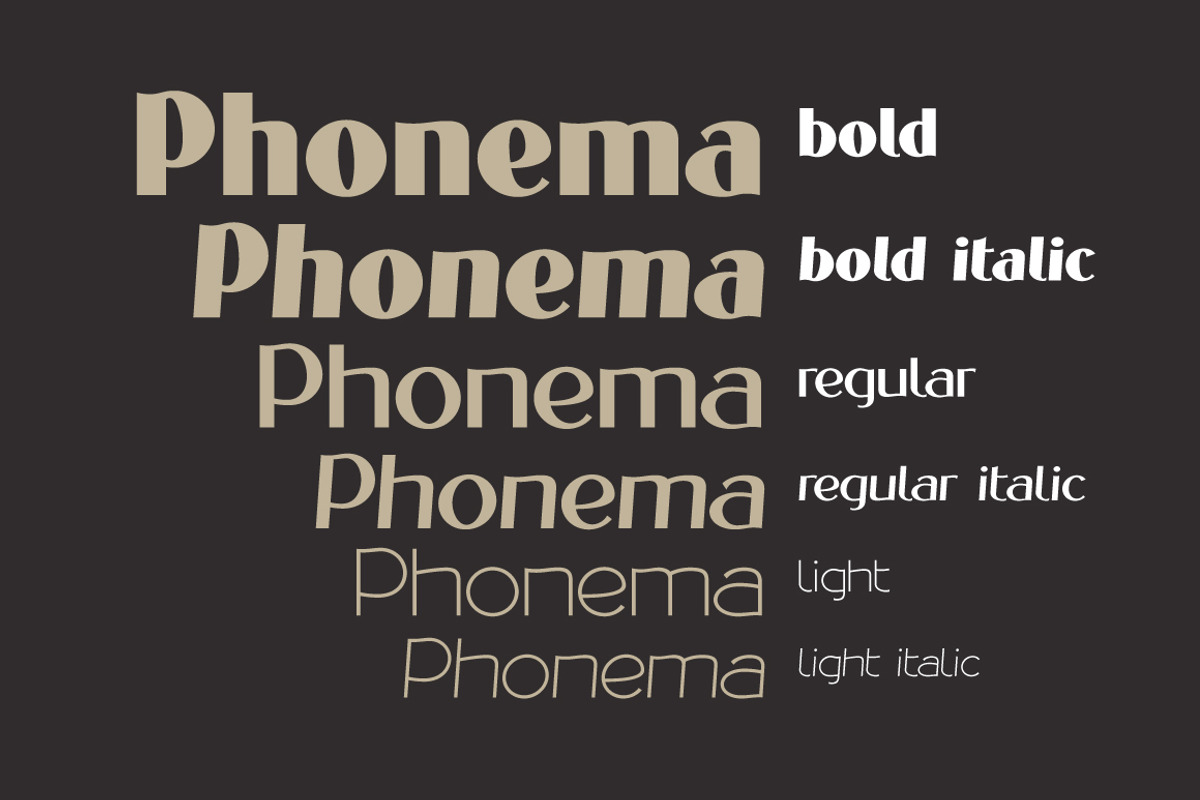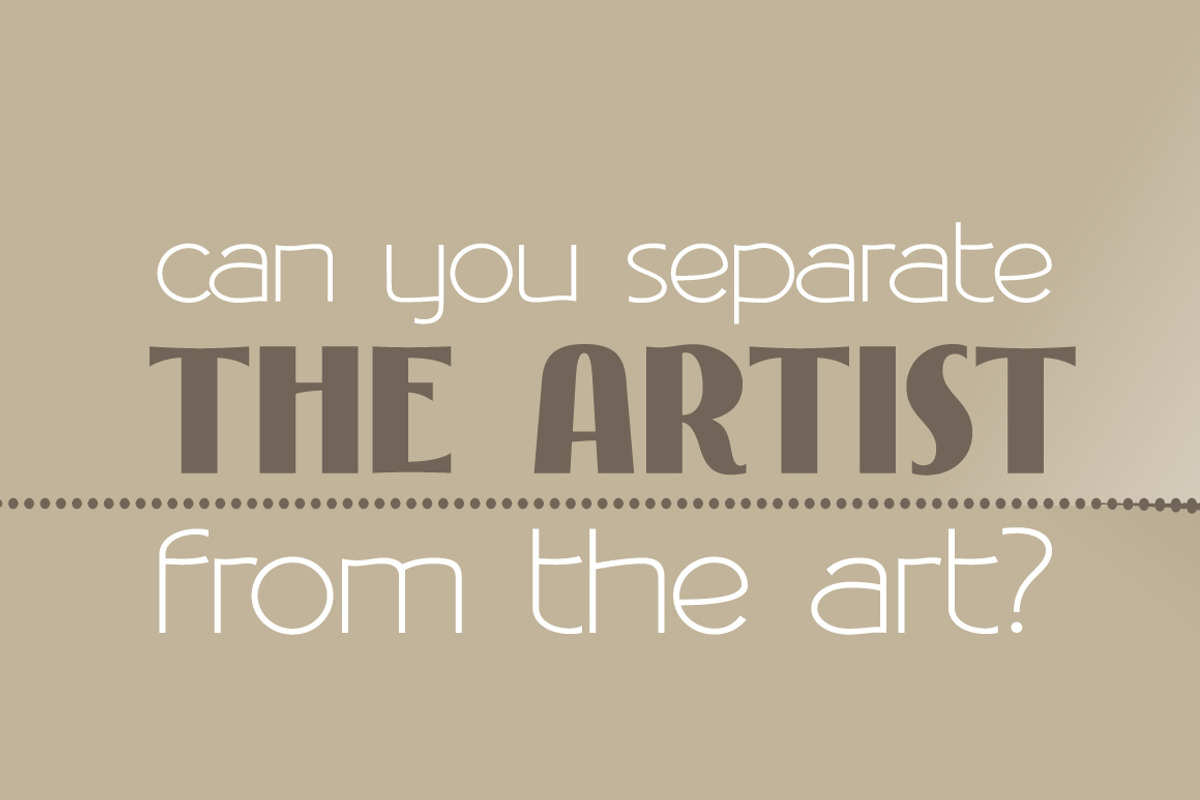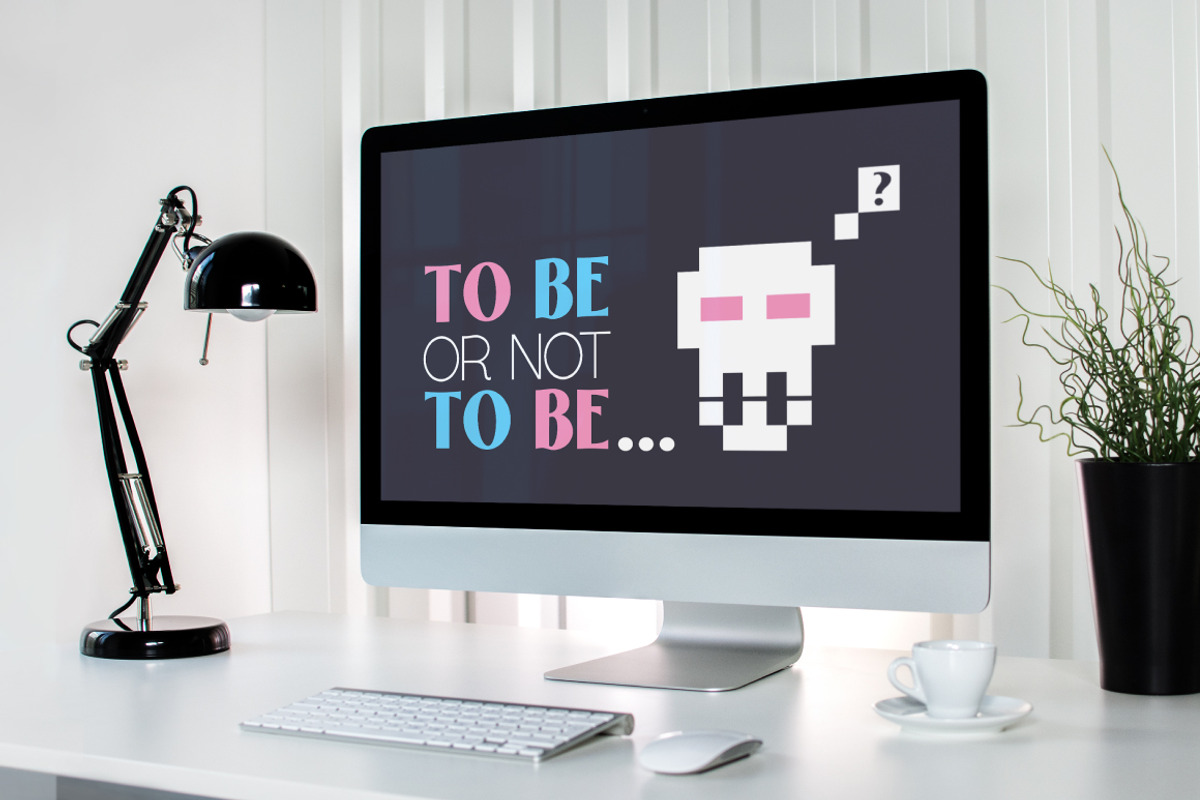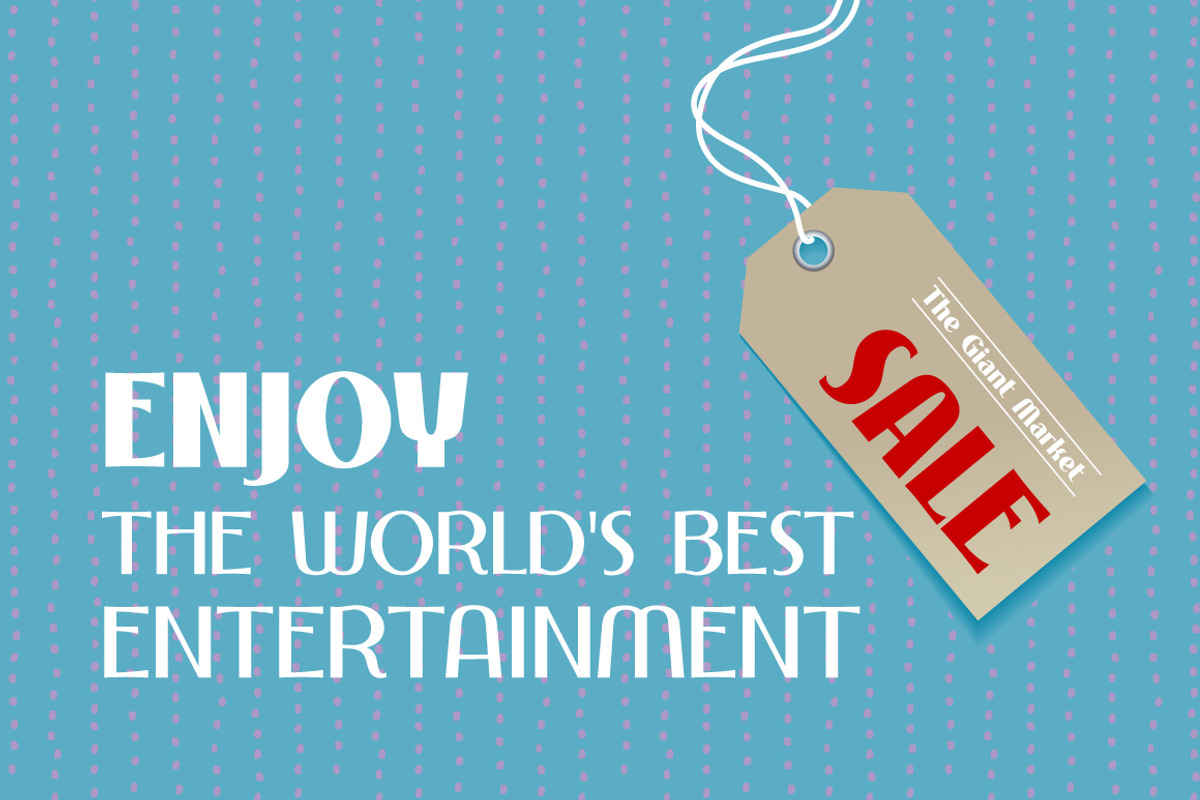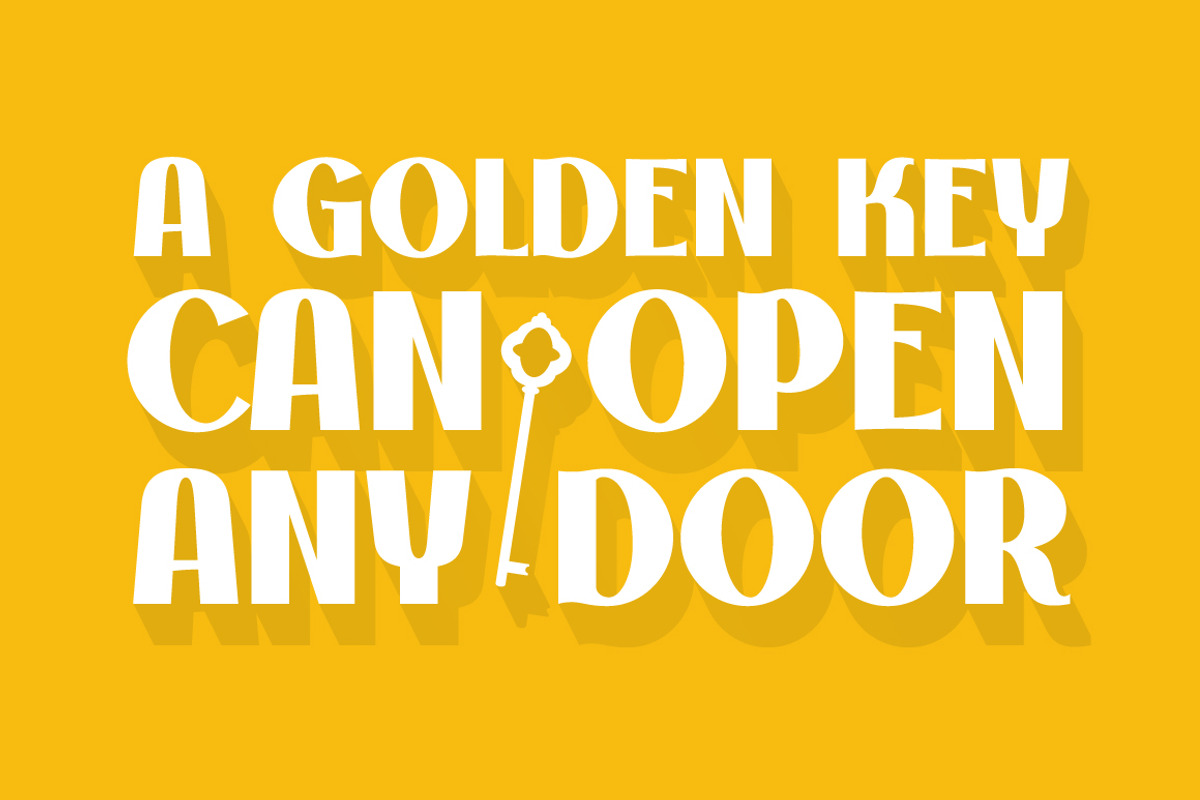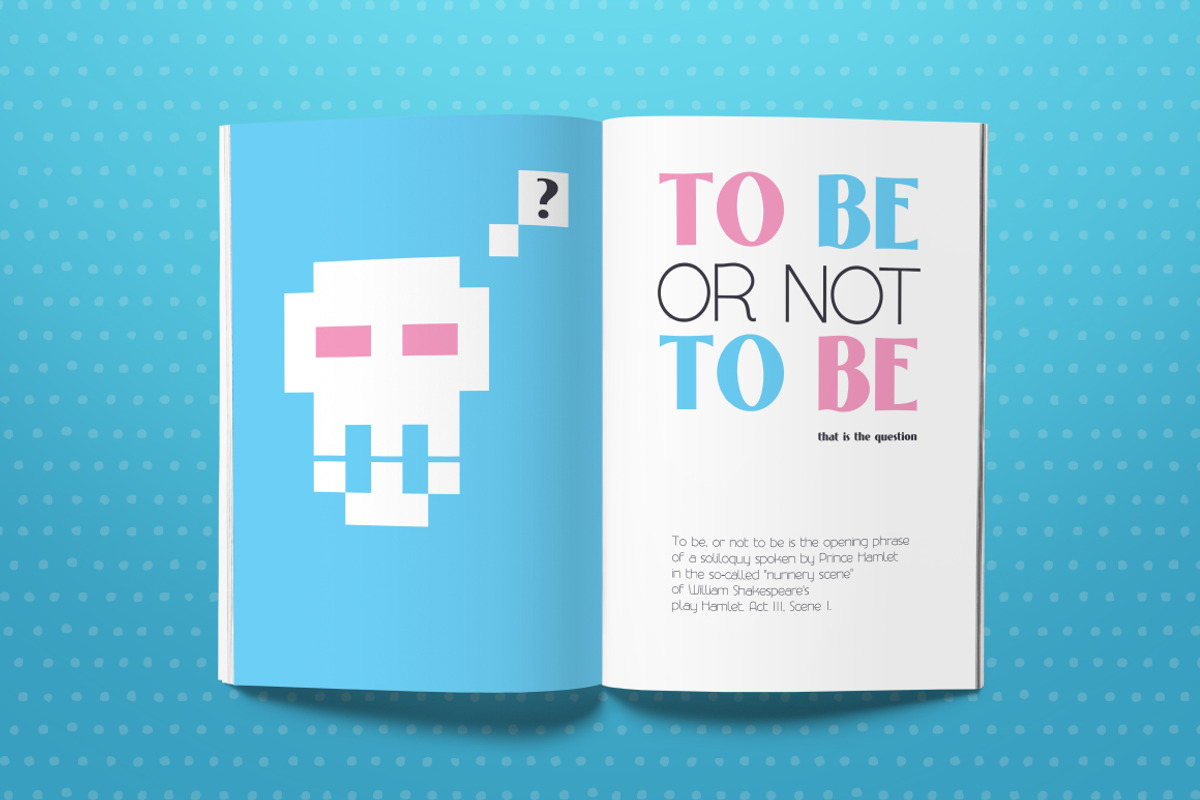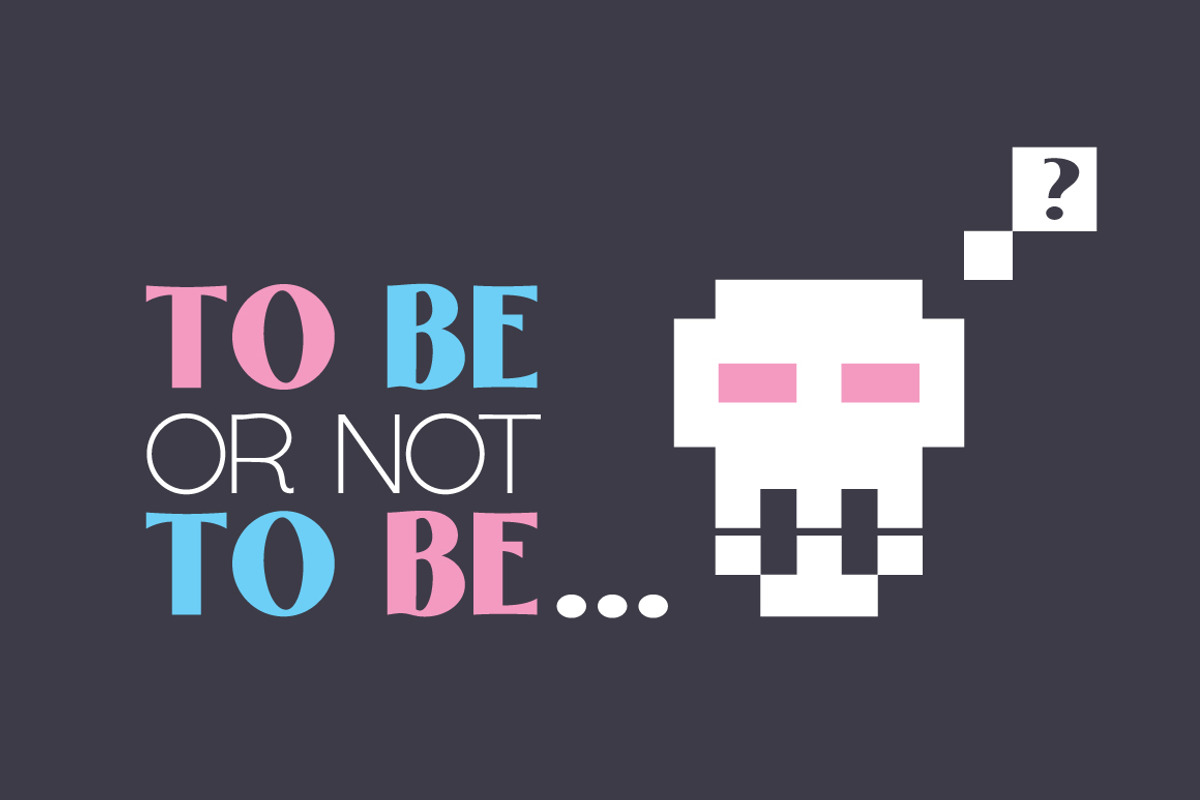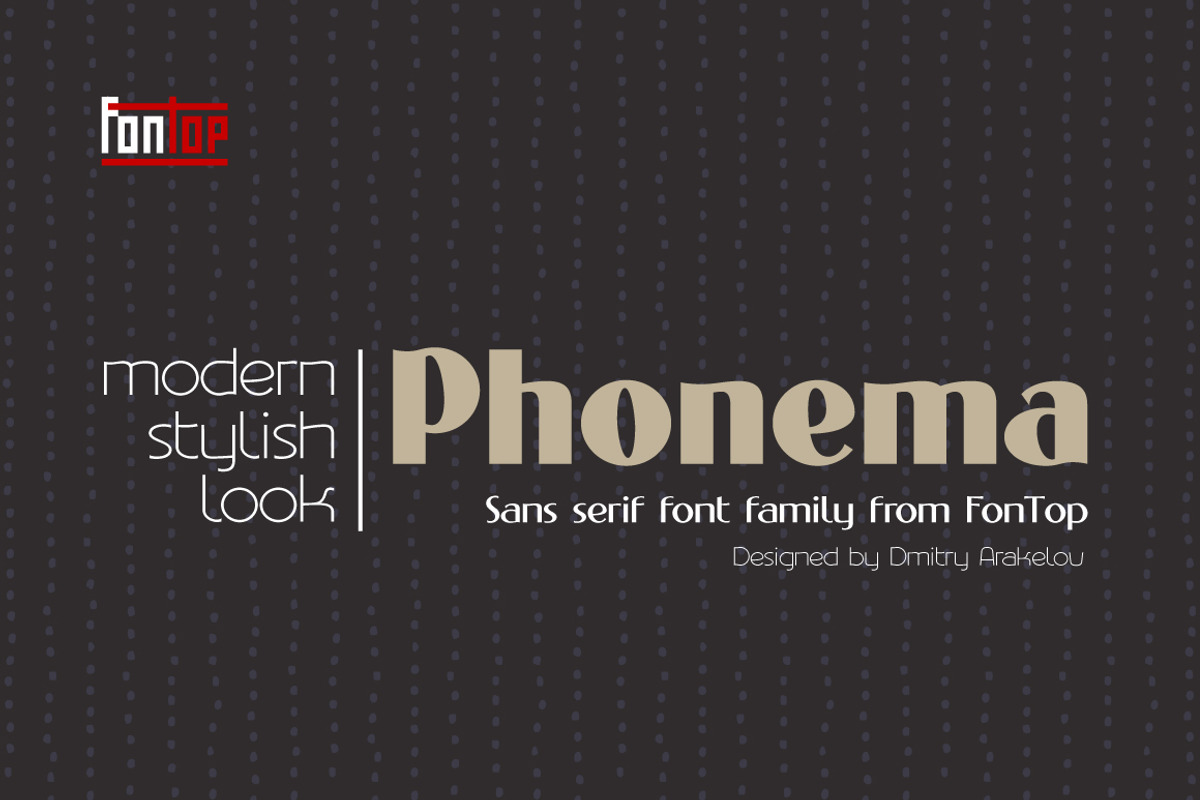
Phonema font family
Warm welcome to my new sans serif typeface PHONEMA. Six stylish and modern fonts are included into this type family. Looks great as headlines on posters, text in magazines, presentations. Also can be used in logos and blog posts.
Each font has Latin multilingual support as well as uppercase letters, lowercase letters, numbers and basic punctuations.